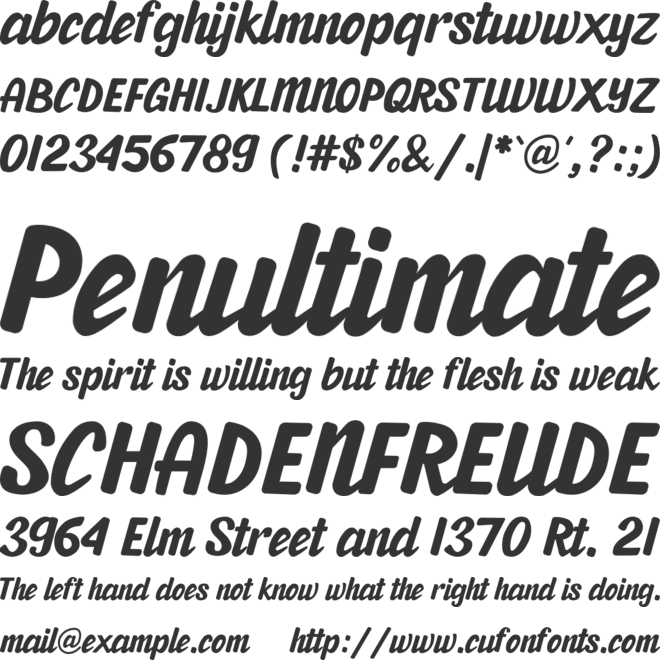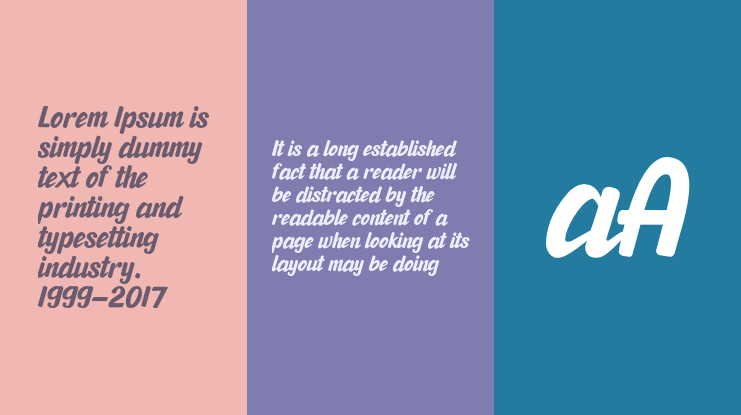
Coastfast Font
Coastfast handwritten font are perfect for wall displays, wedding invitations, social media post logos, advertisements, product packaging, product designs, labels, photography, watermarks, invitations, stationery, and any project that requires handwritten taste...By installing or using this font, you are agree to the Product Usage Agreement:This font is DEMO and ONLY for PERSONAL USE. NO COMMERCIAL USE ALLOWED!Here is the link to purchase full version and commercial license:https://www.creativefabrica.com/product/coastfast/ref/1586850/For Corporate use you have to purchase Corporate license.If you need a custom license please contact us at : donation are very appreciated. Paypal account for donation :https://paypal.me/baarastFollow our instagram for update : @hujantypeThank you.